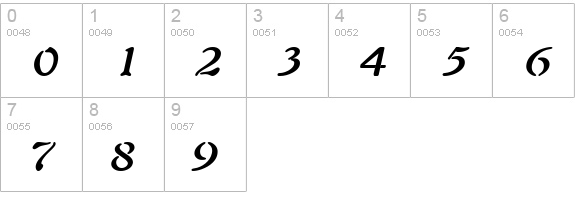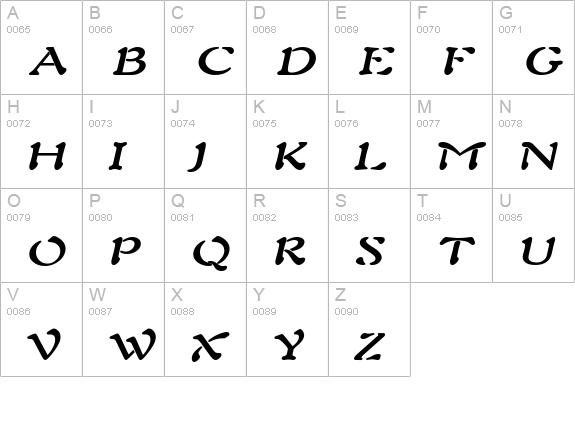
Freedom 9 Wide BoldItalic is a distinctive, extended-width variant in the Freedom typeface family \xE2\x80\x94 well suited to design and typography projects.
Introducing Freedom 9 Wide BoldItalic font, a dynamic and eye-catching typeface that exudes confidence and style. This unique font combines boldness with a touch of elegance, making it perfect for making a statement in any design project. The italicized characters add a sense of movement and flair, elevating your text to new heights. What sets Freedom 9 Wide BoldItalic font apart is its sense of freedom and individuality. The bold strokes and wide spacing give your words room to breathe and stand out, creating a powerful visual impact. Whether you're designing a poster, logo, or website, this font will help your message shine. Best of all, Freedom 9 Wide BoldItalic font is available for free download at FontsMarket.com. You can unleash your creativity without any restrictions, knowing that this versatile font is just a click away. Elevate your designs and make a bold statement with Freedom 9 Wide BoldItalic font today.